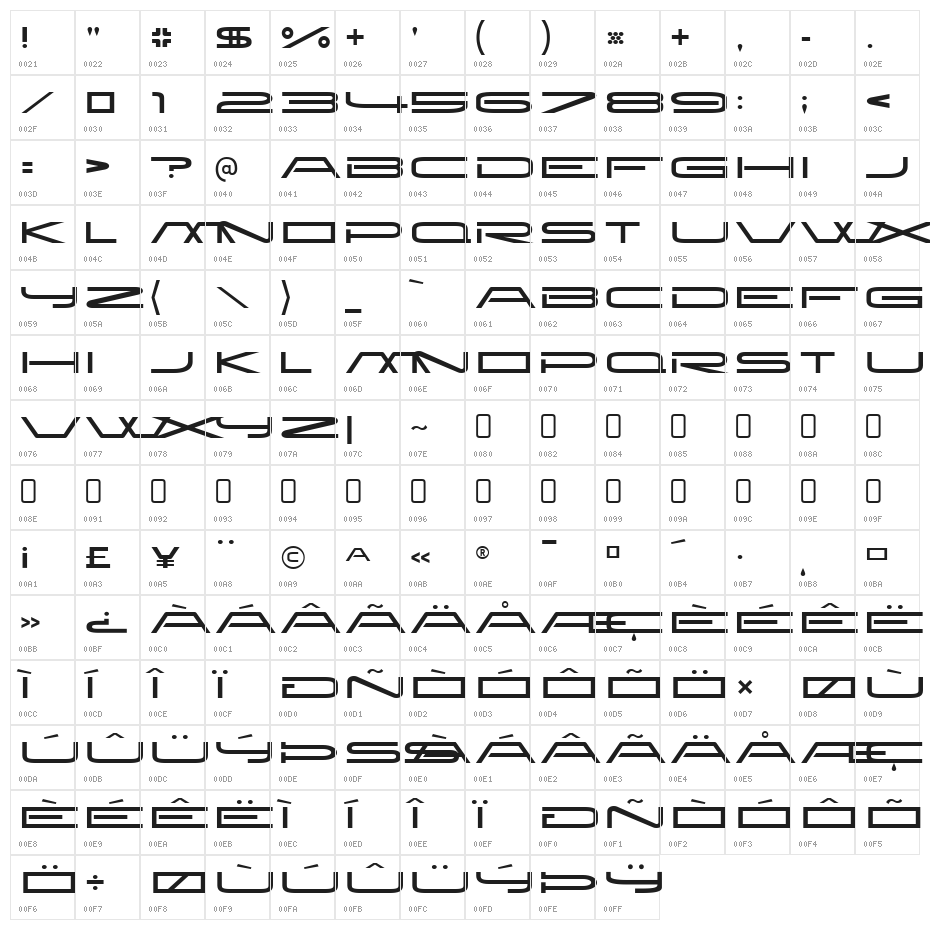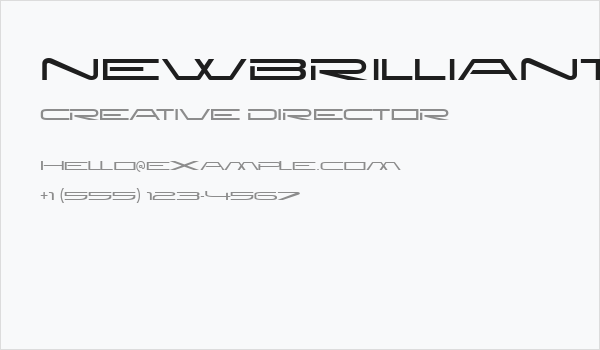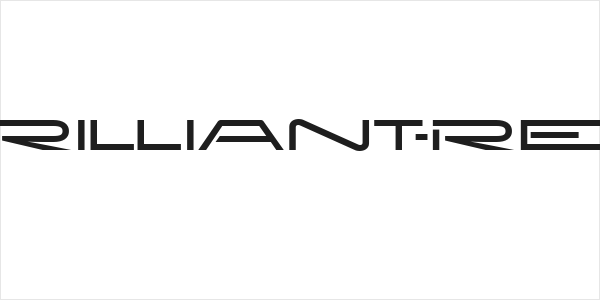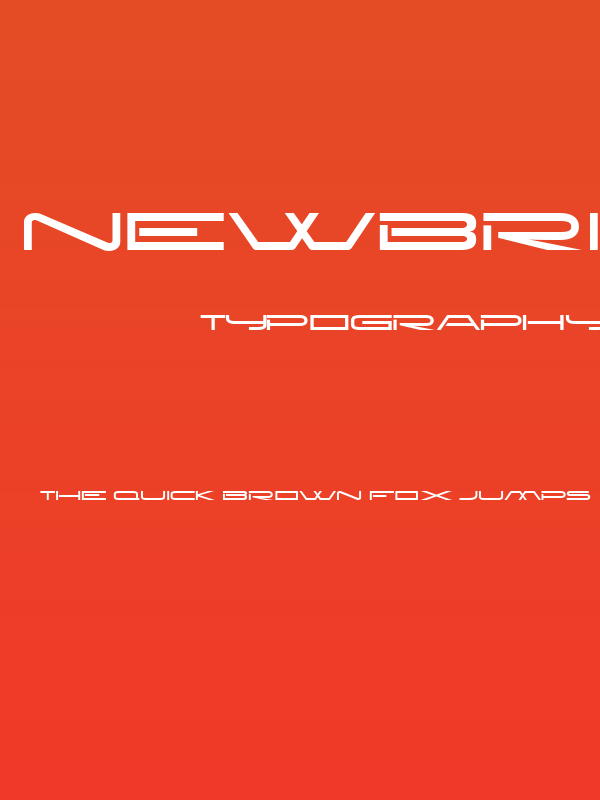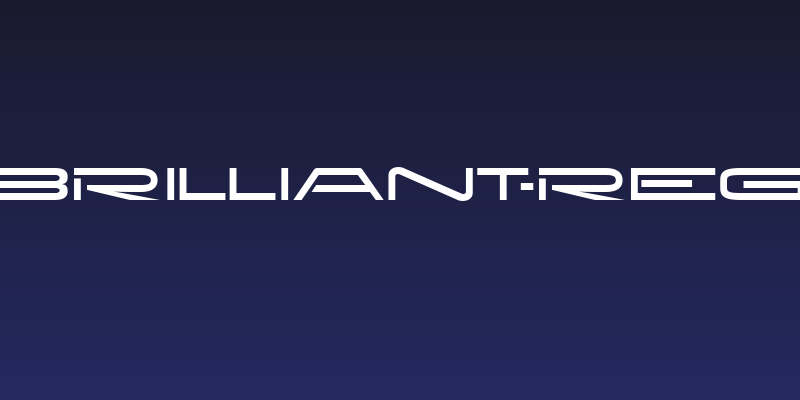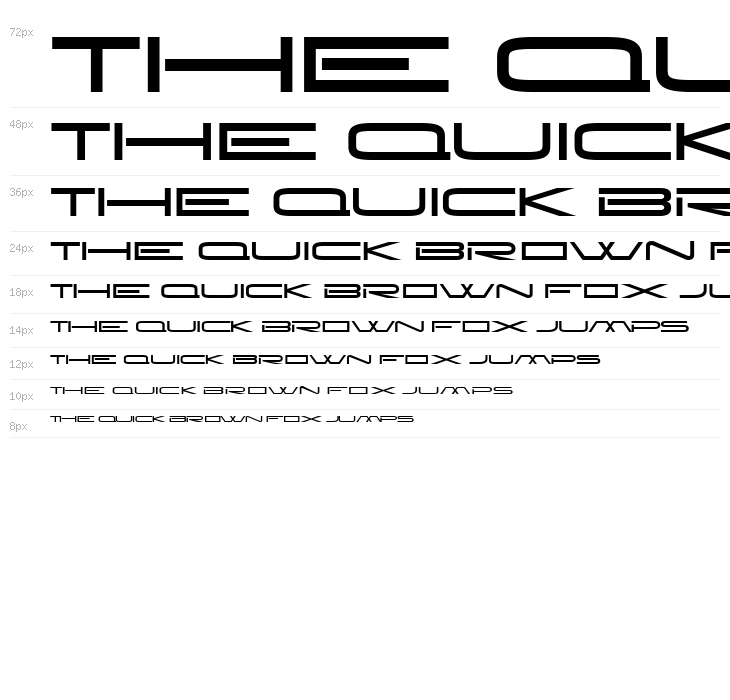
NewBrilliant-Regular Font
NewBrilliant-Regular Description
This font features a futuristic and sleek design with geometric elements. The characters are constructed with sharp angles and clean lines, giving it a modern and technical appearance. The uppercase letters are particularly distinctive, with unique cuts and extensions that add to its dynamic style. The lowercase letters maintain a consistent design, complementing the uppercase with a similar angular approach. Numbers and special characters follow the same aesthetic, ensuring uniformity across all glyphs. This font is well-suited for projects that require a contemporary and innovative look.
| Proposed Projects | Ideal for technology branding, sci-fi themed projects, modern advertising, and innovative product packaging. |